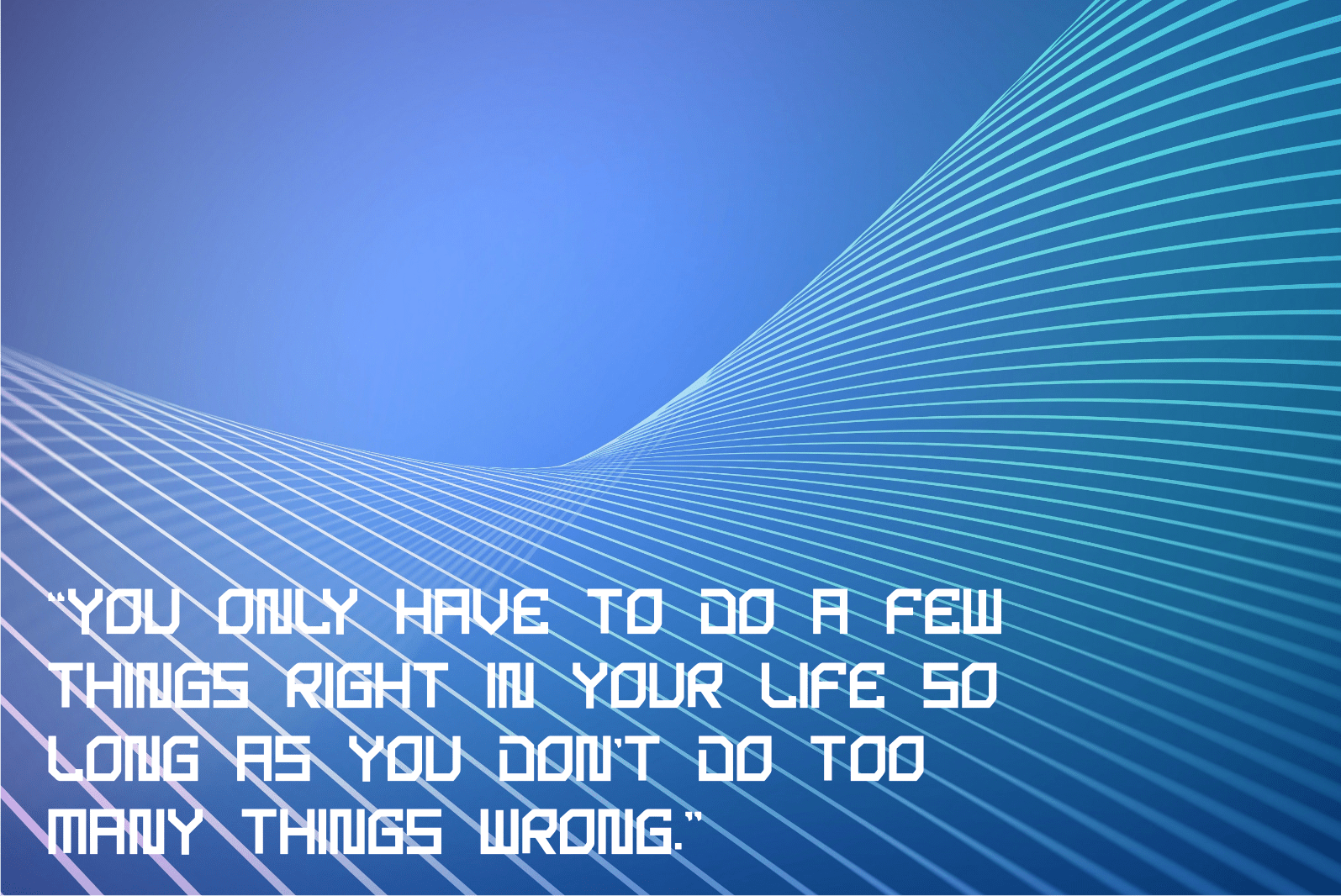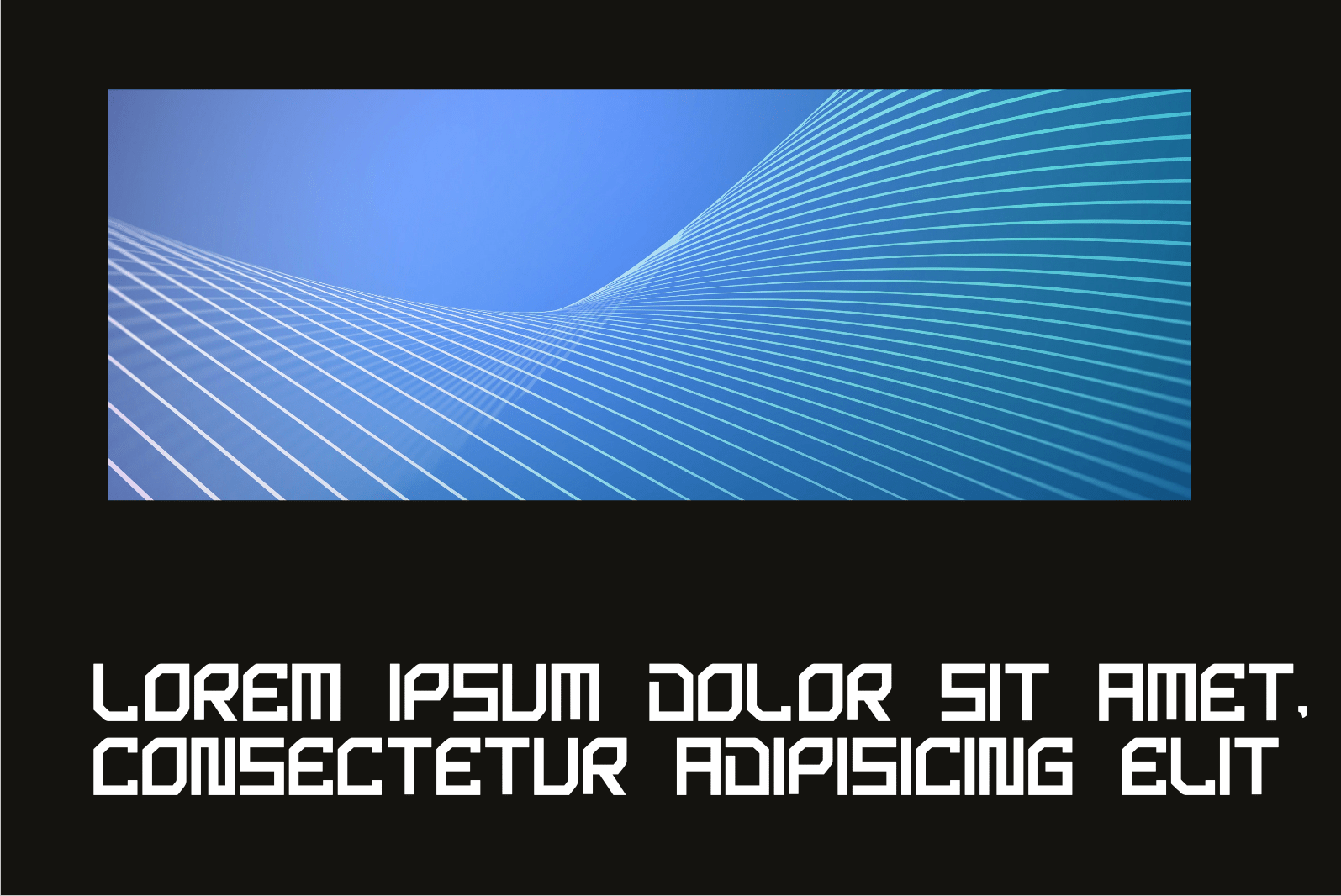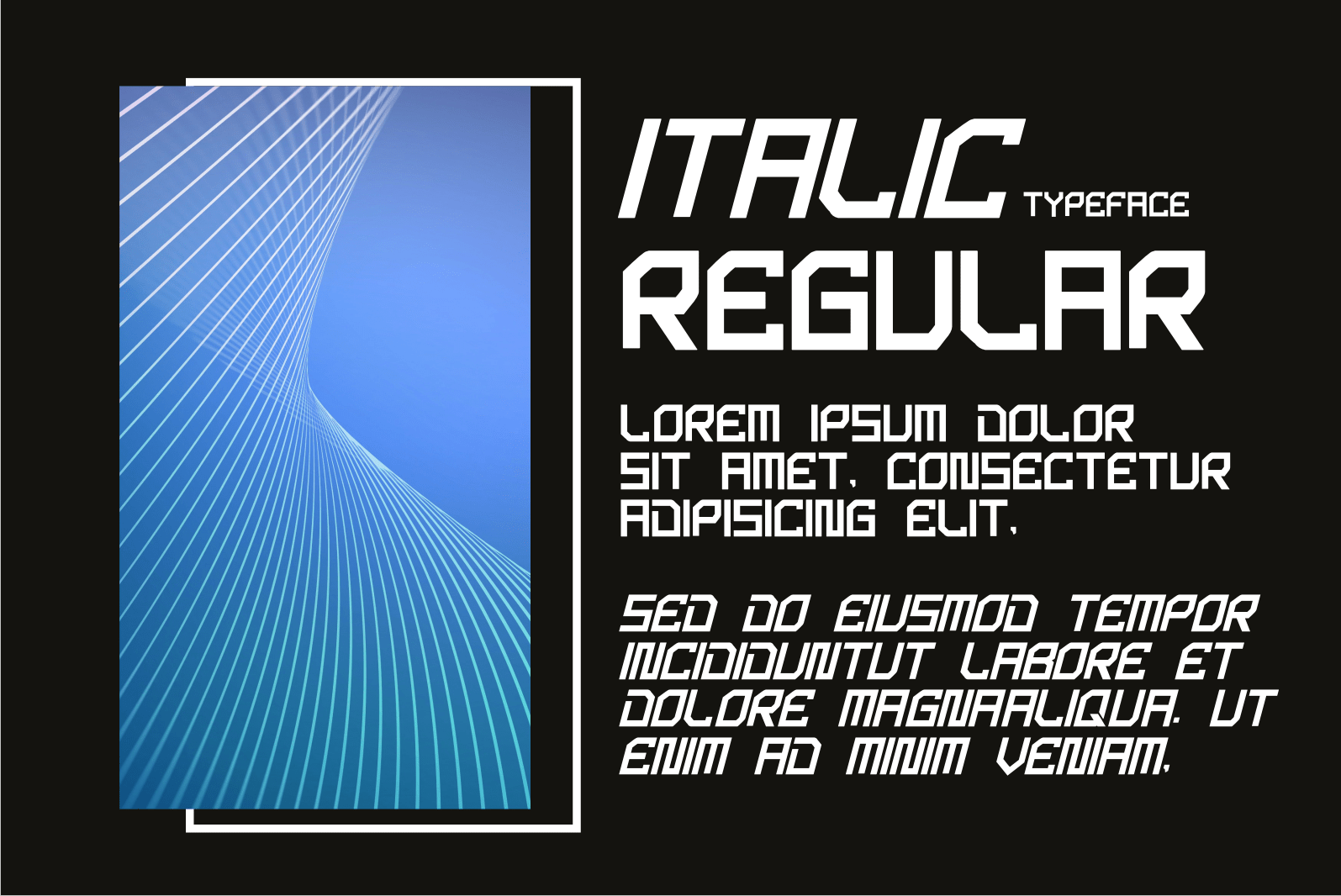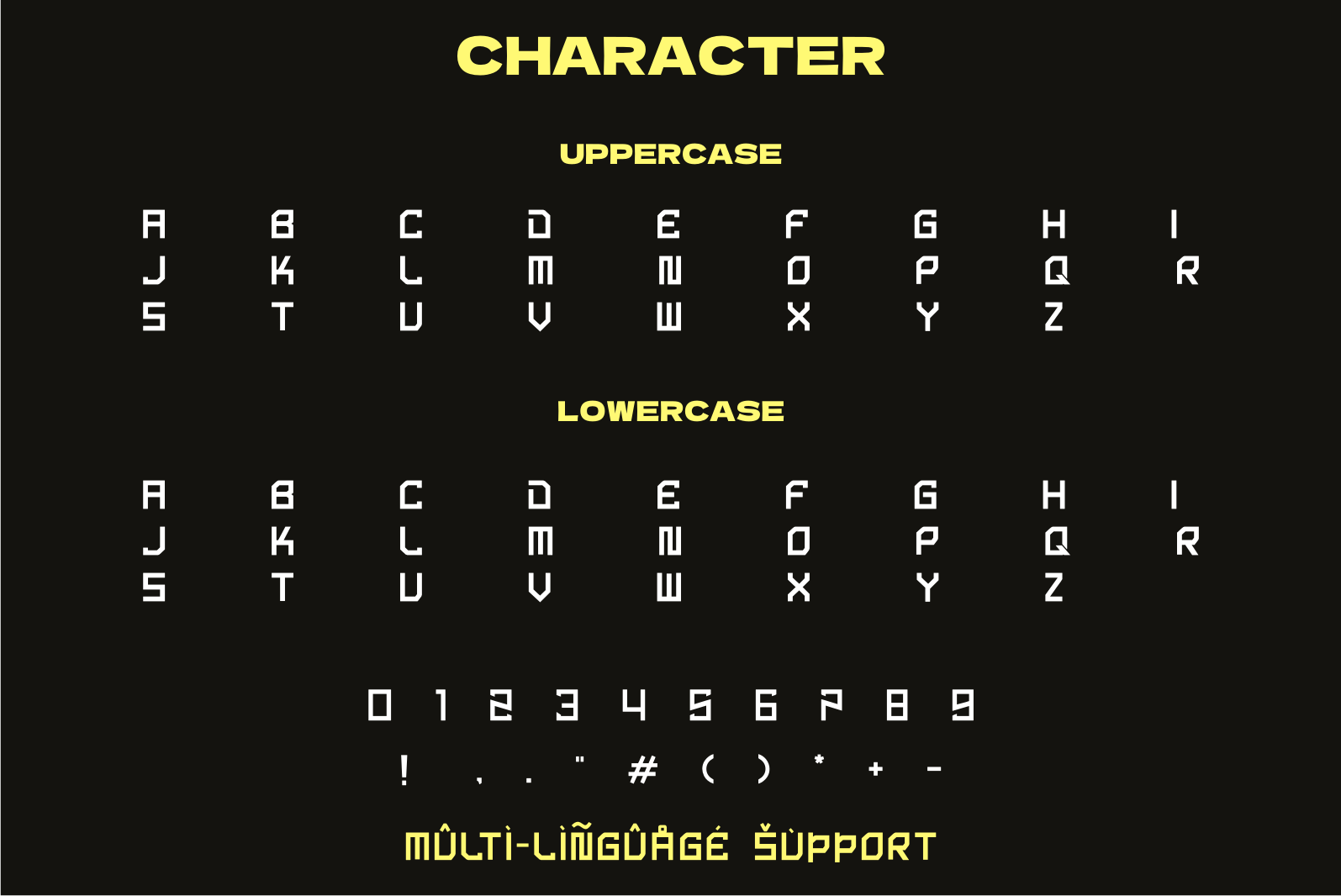
Prostf Font
Prostf Display Font
It’s an assertive and robotic styled display font. This font is ideal for writing web designs, business cards, or pretty much anything else that requires a futuristic touch.